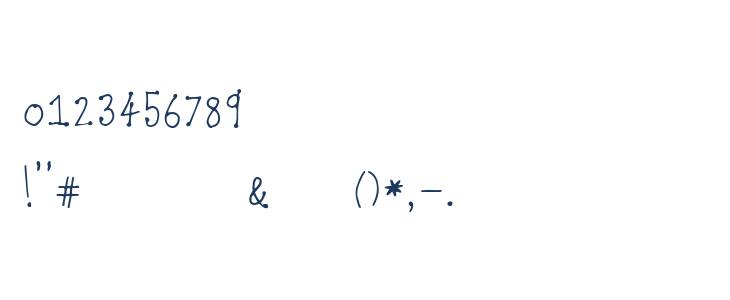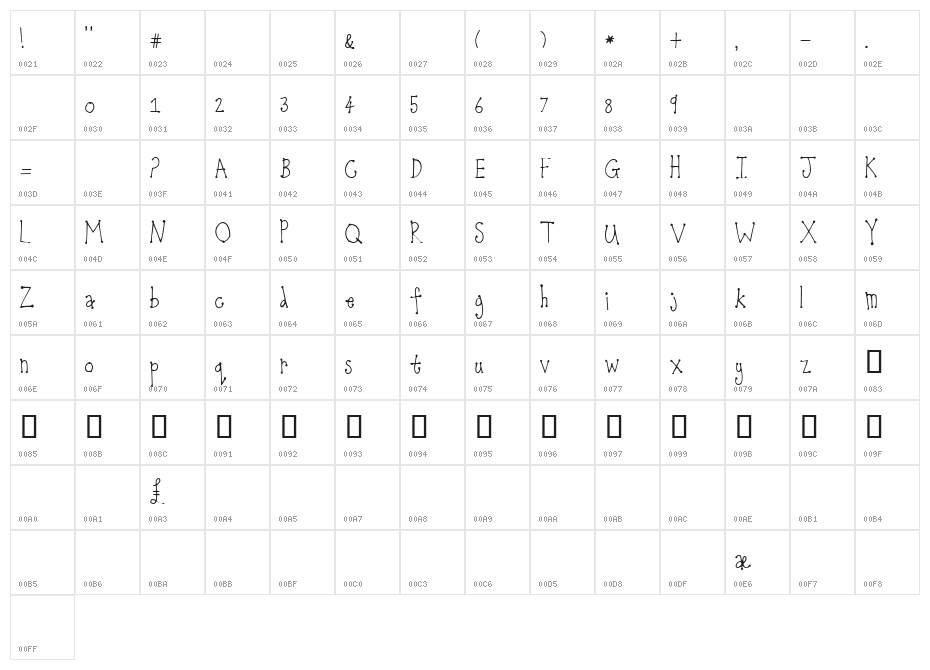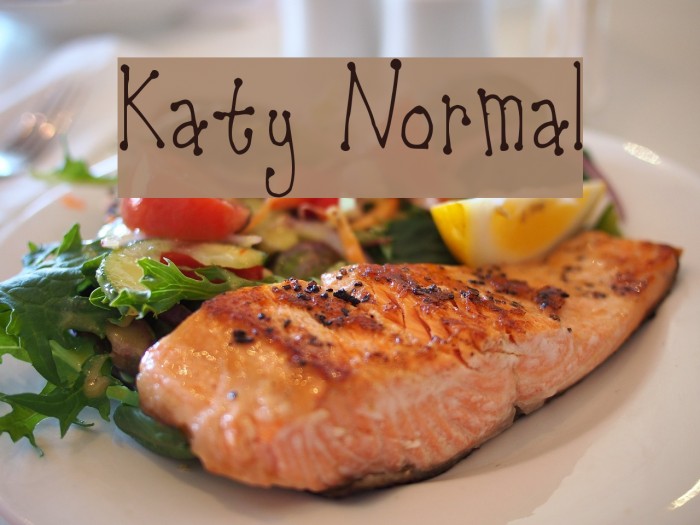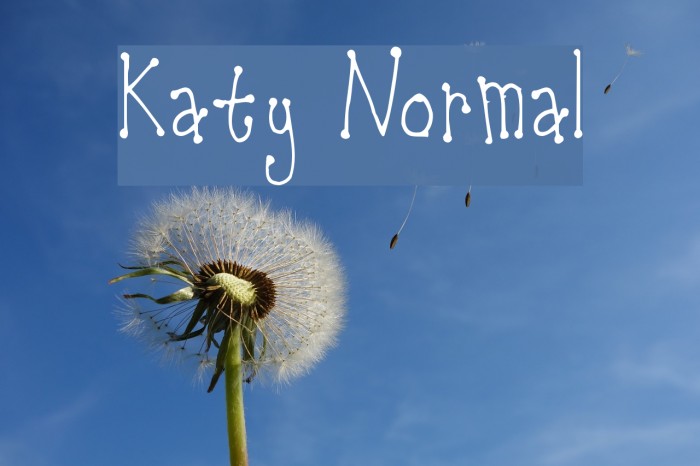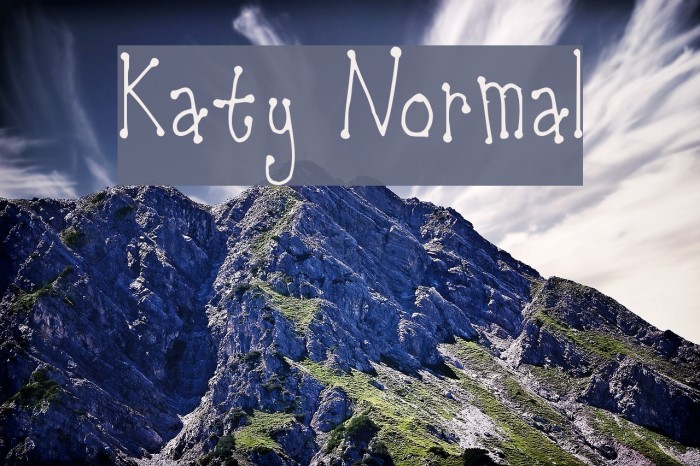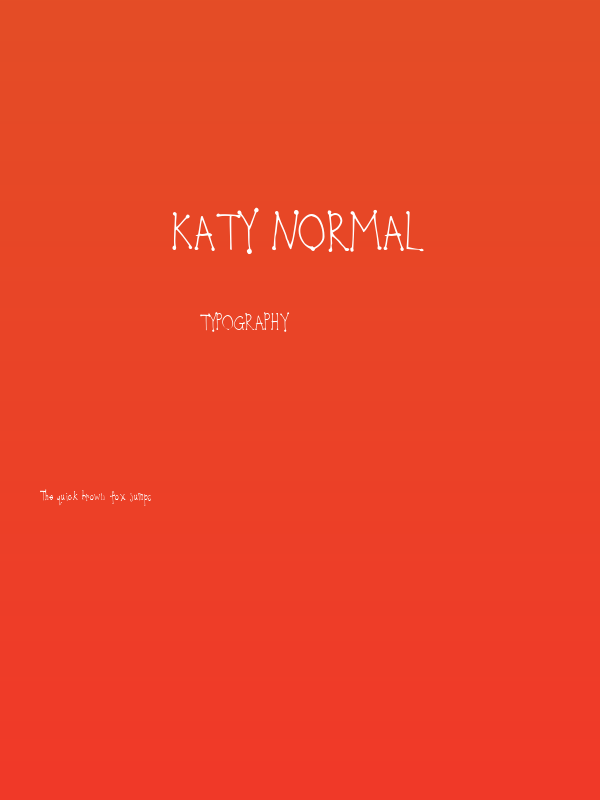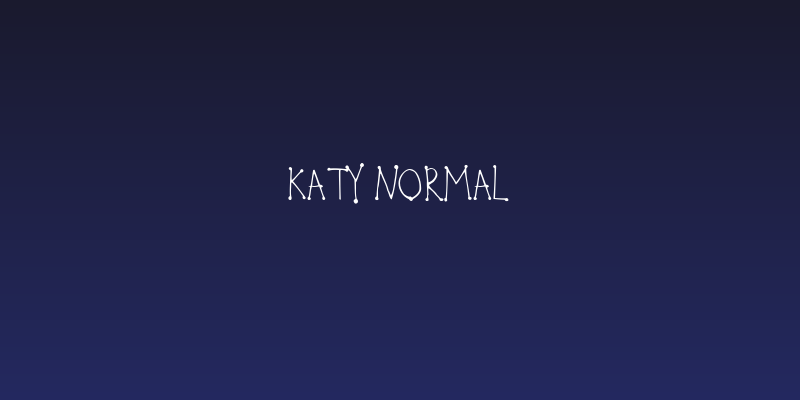
Katy Normal Font
Katy Normal Description
This font features a playful and whimsical style, characterized by its hand-drawn appearance. The letters are slightly irregular, with varying stroke thickness that adds a dynamic and lively feel. The uppercase letters are tall and narrow, while the lowercase letters maintain a consistent height, creating a cohesive look. The numbers and special characters follow the same playful design, making the font suitable for creative and informal projects. The overall design is approachable and friendly, with a touch of quirkiness that makes it stand out.
| Proposed Projects | Ideal for children's books, greeting cards, playful branding, and creative posters. |